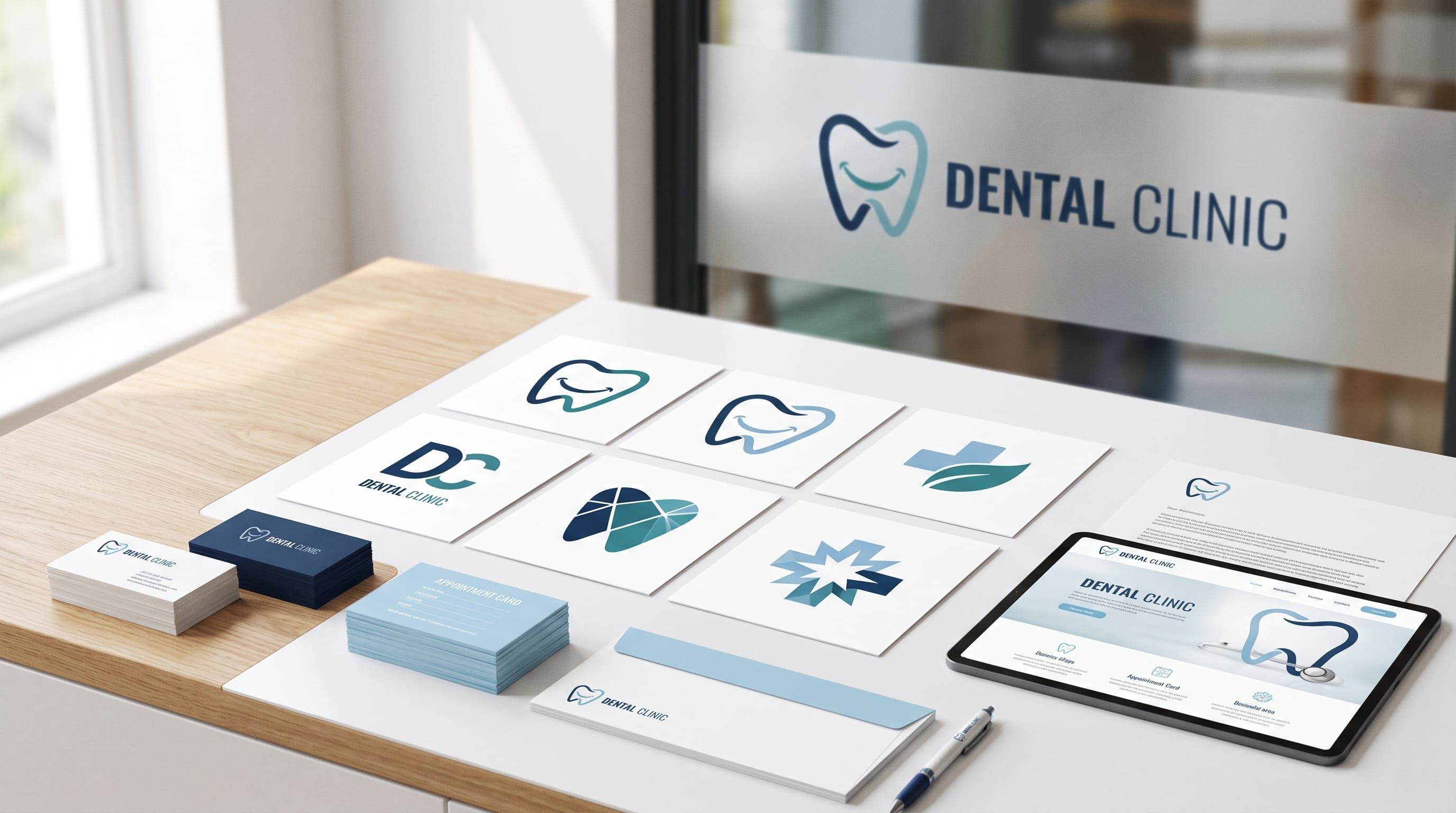
Dental Clinic Logo Design Ideas for Better Recognition and Trust
dental clinic logo design
A strong dental clinic logo design can help a practice look professional, trustworthy, clean, and easy to remember. Patients often encounter a clinic’s visual identity before they ever meet a dentist, whether through Google, social media, signage, appointment cards, or a website. The logo therefore plays an important role in creating a reassuring first impression.
Dental branding presents a unique challenge. The identity needs to communicate professionalism and healthcare credibility without feeling cold or intimidating. At the same time, the logo should be distinctive enough that the clinic does not look identical to every other dental practice using the same blue tooth symbol.
The strongest dental identities combine simple visual concepts with appropriate typography, restrained colors, and a clear understanding of the clinic’s audience.
A family dental practice may need to feel friendly and accessible, while a cosmetic dentistry clinic may emphasize elegance and premium treatment.
Below are practical dental clinic logo design ideas that can help create stronger recognition and patient trust.
Start Dental Clinic Logo Design With Brand Positioning
Before opening design software, define what the dental clinic wants to be known for.
Ask:
• Who are the primary patients?
• What services are most important?
• Is the clinic family-friendly or premium?
• Does it specialize in cosmetic dentistry?
• Should the brand feel modern, warm, clinical, or luxurious?
• What makes the practice different from nearby competitors?
For example, a family clinic could position itself around:
Friendly dental care for every generation.
A cosmetic clinic might focus on:
Modern smile design with premium personalized care.
These two positions should not produce the same visual identity.
Clear positioning gives the dental clinic logo design a strategic direction.
1. Use a Simple Tooth Symbol
The tooth is the most obvious visual symbol for dentistry.
It works because patients understand it immediately.
However, the challenge is making the symbol distinctive.
Instead of using a generic stock tooth icon, try creating a custom shape using:
• Negative space
• Initials
• Geometric lines
• Curved forms
• Abstract construction
For example, the clinic’s initials could form part of the tooth silhouette.
A simplified icon can remain recognizable across everything from storefront signage to social profile pictures.
2. Create an Abstract Dental Logo
Not every dental logo needs a literal tooth.
Abstract symbols can make a clinic feel more contemporary.
Possible inspiration includes:
• Smiles
• Curves
• Circles
• Arches
• Human profiles
• Protective shapes
For example, two curved lines could form both a smile and a subtle tooth.
Abstract dental clinic logo design can be particularly effective for premium, cosmetic, or technology-focused practices.
The important requirement is relevance.
The symbol should still make sense when connected to the name and overall brand.
3. Use a Smile as the Main Logo Concept
A smile communicates the outcome patients care about rather than the procedure itself.
Smile-inspired logos can feel:
• Positive
• Friendly
• Human
• Approachable
They work well for:
• Family dentists
• Cosmetic dentists
• Orthodontists
• Pediatric clinics
A smile can appear beneath the wordmark or become part of a letter.
For example, the bottom curve of an O could subtly transform into a smiling shape.
Keep the concept simple enough that it remains visible at small sizes.
4. Combine a Tooth and Initials
Initial-based logos can create a stronger sense of ownership and recognition.
Imagine a clinic named:
Brightwell Dental
The letters B and D might be combined inside a simplified tooth shape.
This gives the logo two levels of meaning:
• Dental symbol
• Brand initials
This approach is especially useful when the clinic name is long.
The monogram can become the compact brand mark for:
• Social icons
• Favicons
• Uniform embroidery
• Signage
• Appointment cards
5. Create a Minimal Dental Clinic Logo Design
Minimalism can communicate cleanliness and professionalism.
A minimalist logo may use:
• One symbol
• One wordmark
• Two colors
• Simple geometry
Avoid unnecessary:
• Shadows
• Gradients
• 3D effects
• Complex borders
• Tiny details
Simple logos are easier to reproduce across digital and printed materials.
They also tend to feel more contemporary.
For modern dental clinic logo design, simplicity is often more effective than trying to make the logo visually complicated.